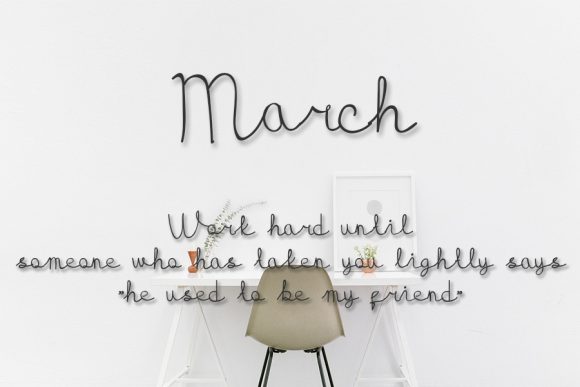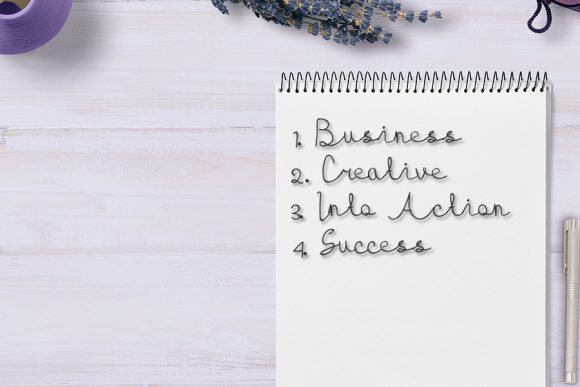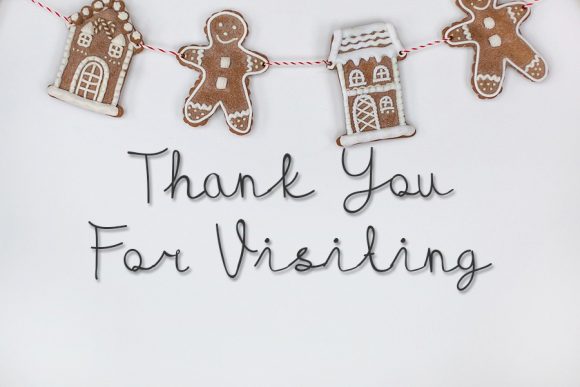
With its elegant script style, the Hello Sweety Font is a game-changer for designers looking to add a handwritten touch to their work. Whether it’s a wedding invitation, thank you card, or business card, this font brings a sense of sophistication and charm to every design. Its versatility and beauty make it a valuable asset for any designer looking to elevate their craft.
Hello Sweety Font Key Features
- Unique Characteristics: Hello Sweety Font features a unique blend of modern and vintage elements, with intricate details and ornate flourishes, making it perfect for creating eye-catching designs.
Hello Sweety Font Review
I recently had the chance to work with the Hello Sweety font, and I must say it’s a mixed bag. On the plus side, ✨ it has a playful, handwritten feel that’s perfect for adding a touch of whimsy to your designs. The font’s curves and flourishes are well-executed, making it a great choice for titles, headings, and other emphasis text.
One of the things I appreciate about Hello Sweety is its versatility. ✨ It comes in a range of weights and styles, from light and delicate to bold and playful. This makes it easy to use in a variety of contexts, from children’s books to advertising and branding.
- ⚠️ The font’s readability can be an issue, particularly in smaller sizes or at a distance. Some letters and numbers can be difficult to distinguish from one another.
- ⚠️ The font’s aesthetic can feel a bit over-the-top or cliche for some projects. If you’re going for a more minimalist or sophisticated look, you may want to consider a different option.
Overall, I’d say Hello Sweety is a solid choice for designers who want to add a bit of personality to their work. While it has some limitations, its strengths make it a worthwhile addition to any font library.
Use the Hello Sweety Font for:
- Creating playful and youthful designs
- Adding a touch of whimsy to your branding
- Designing social media graphics and advertisements
- Creating custom invitations and event materials